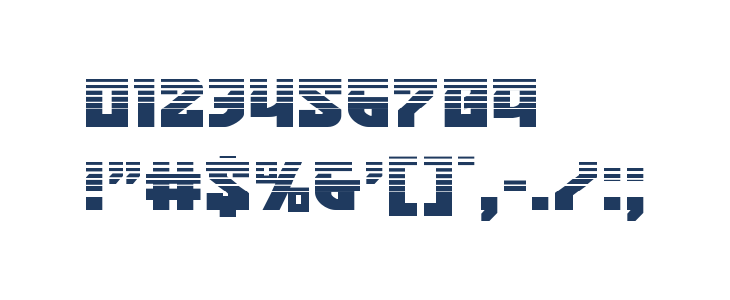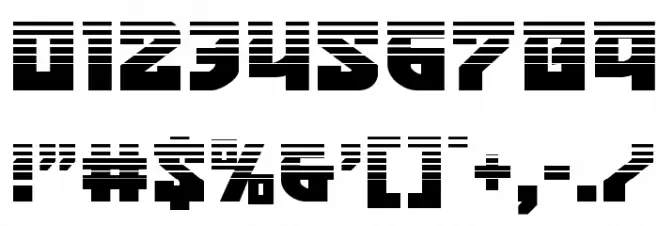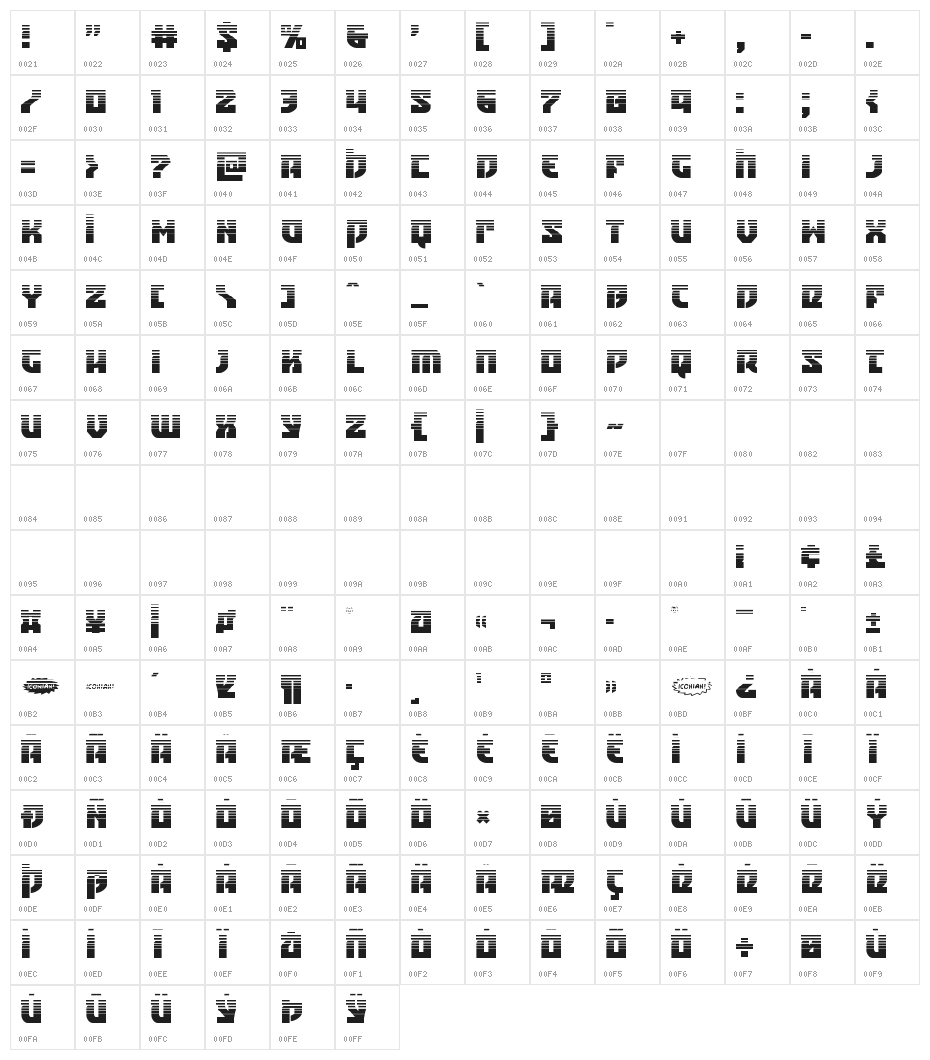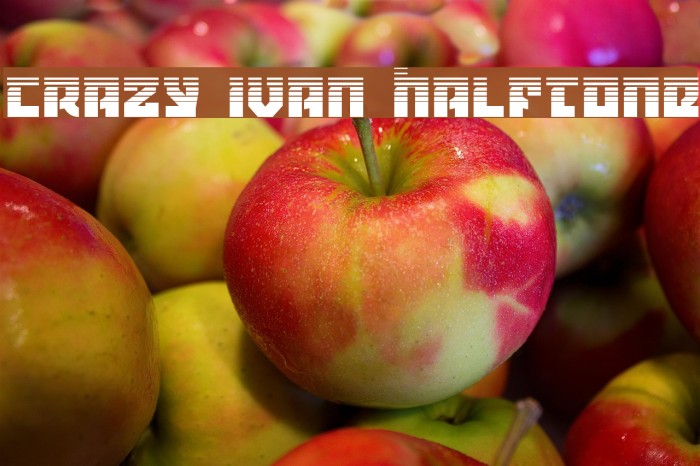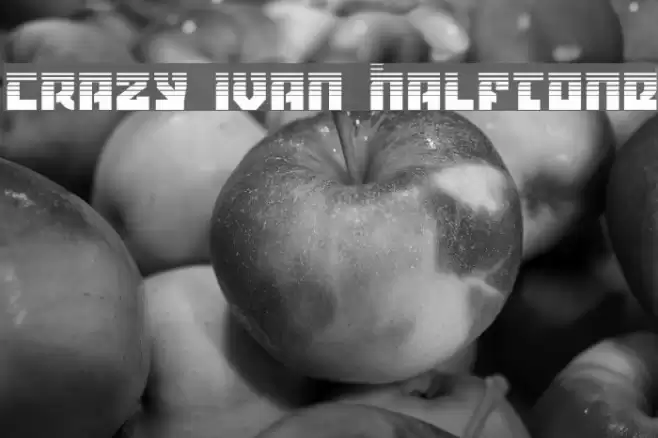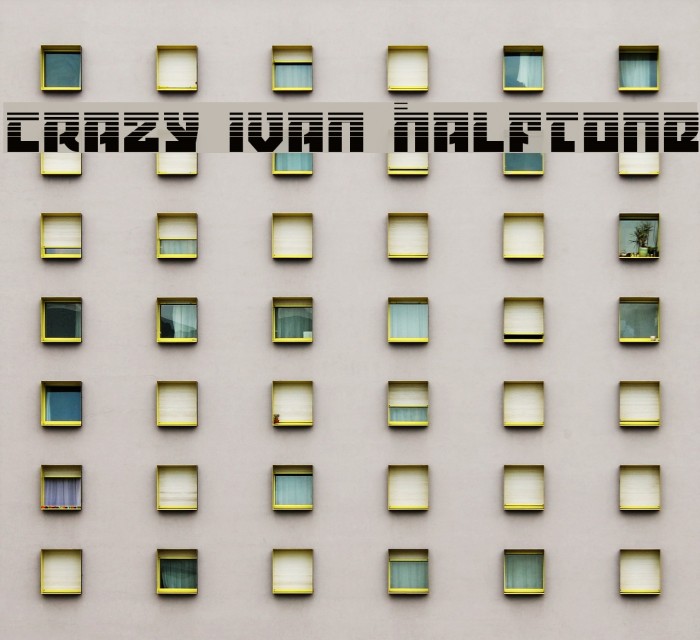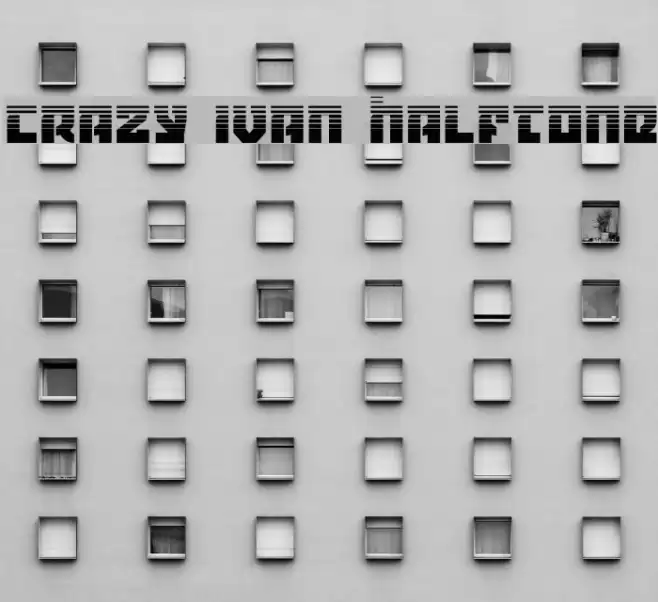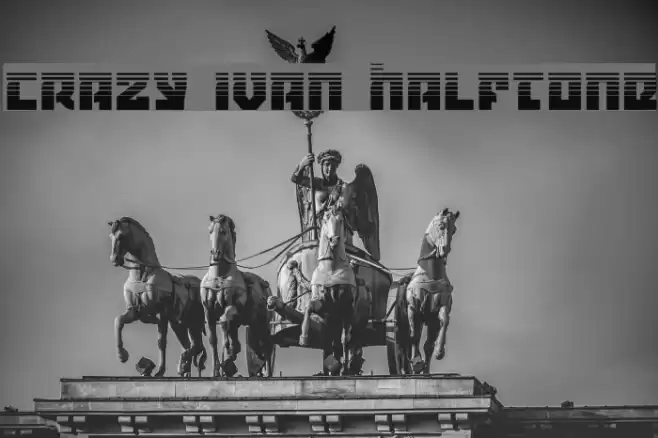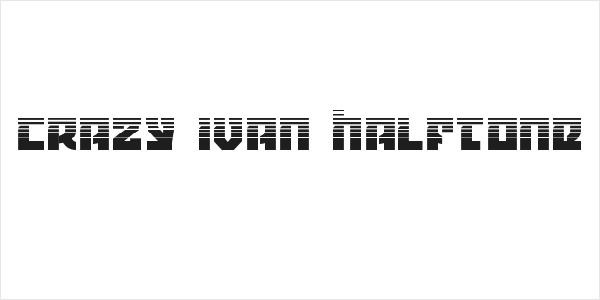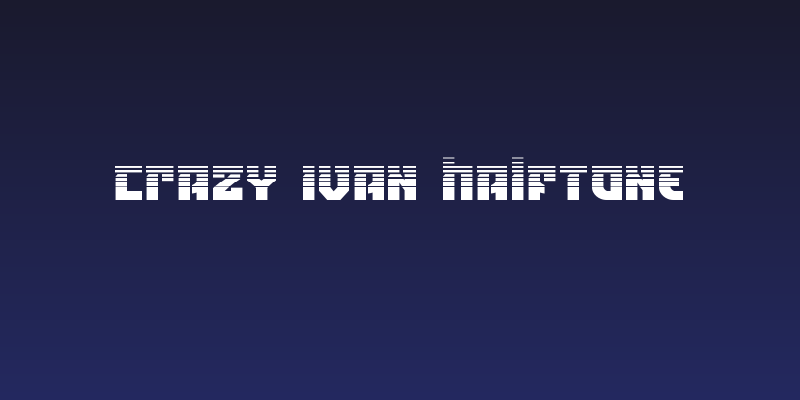
Crazy Ivan Halftone Font
Crazy Ivan Halftone Description
This font features a bold, geometric design with a distinct halftone effect, characterized by horizontal lines that create a sense of movement and depth. The uppercase and lowercase letters maintain a consistent width, giving the font a uniform appearance. The numerals and special characters follow the same stylistic approach, ensuring cohesion across all elements. The font's strong visual impact makes it suitable for attention-grabbing designs. Its unique style is reminiscent of digital or futuristic themes, making it ideal for projects that require a modern and edgy look.
| Proposed Projects | Ideal for digital artwork, posters, video game graphics, and branding that requires a futuristic or tech-inspired look. |